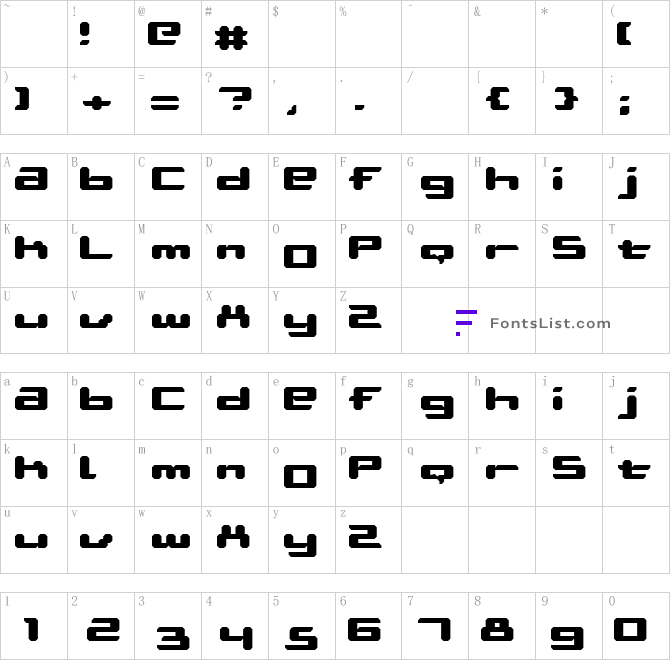
Ablattive-Bold.ttf is a very beautiful artistic font, Ablattive-Bold.ttf is widely used in the design and printing of various books and pictures,Ablattive-Bold.ttf has a strong visual impact,Ablattive-Bold.ttf is a commonly used font in newspapers, magazines and books, and is used in posters, e-commerce Poster design, store design, logo design, font design and other fields.Ablattive-Bold.